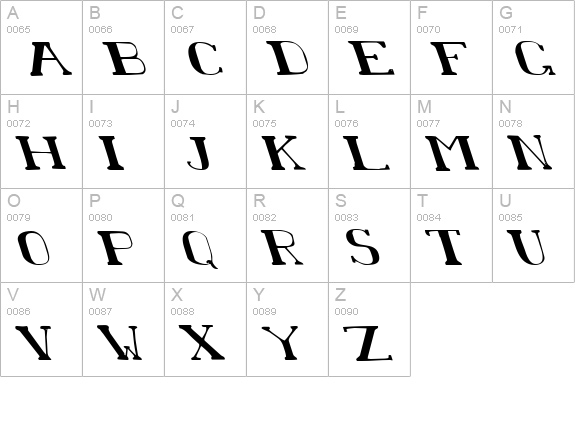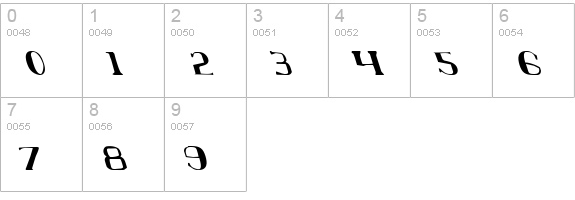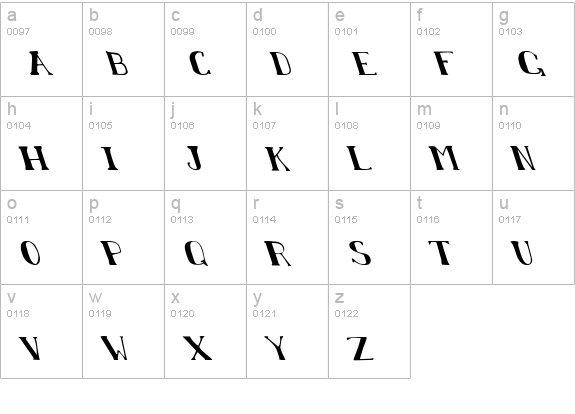
Chardin Doihle Leftalic font is a modern and elegant typeface that exudes sophistication and style. Its sleek lines and unique curves make it perfect for adding a touch of class to any design project. The left-leaning italic style adds a dynamic and eye-catching element to the text, making it stand out from the crowd. What makes Chardin Doihle Leftalic font even more appealing is that it is available for free download at FontsMarket.com. This means that you can easily access this beautiful font and use it in your projects without any cost. Whether you're designing a website, creating a logo, or working on a print project, Chardin Doihle Leftalic font is sure to elevate your design and leave a lasting impression. Download it now and add a touch of elegance to your work!